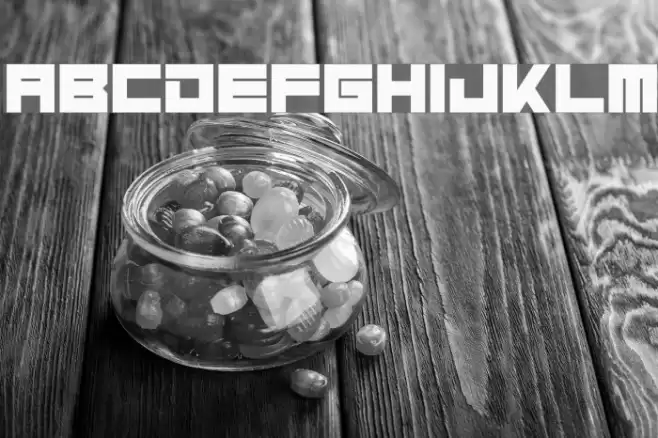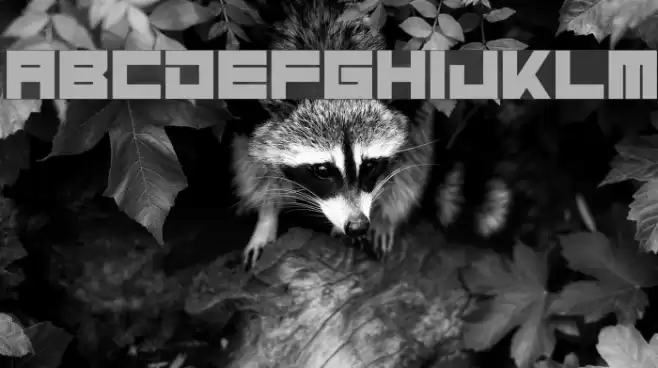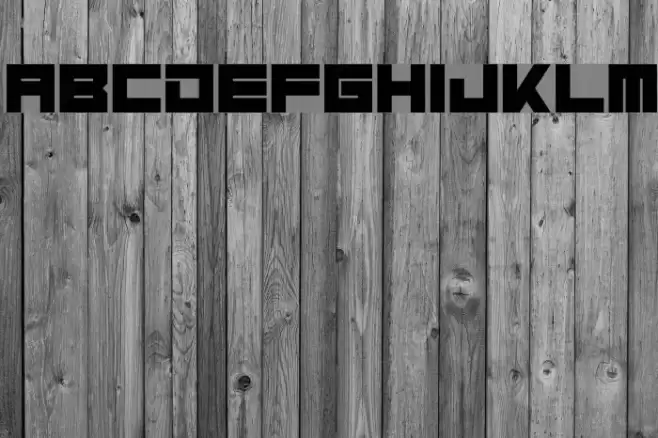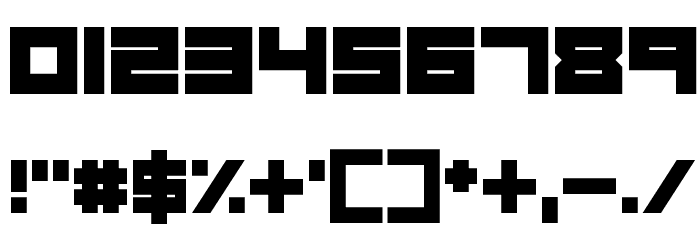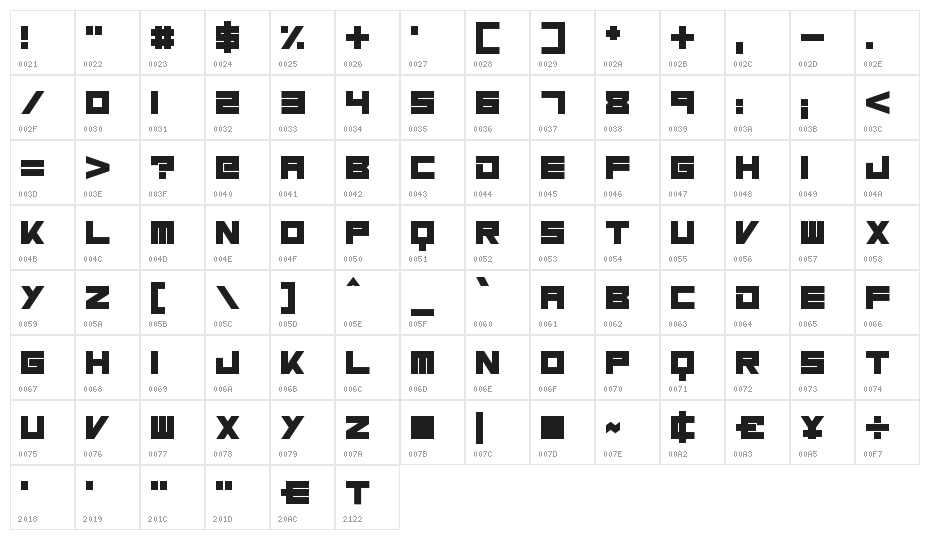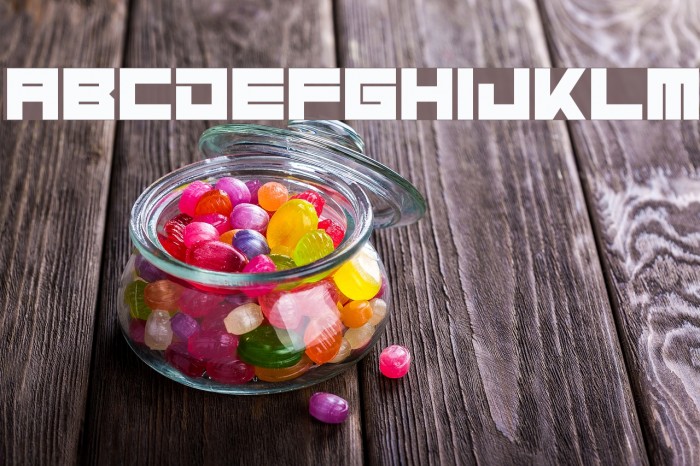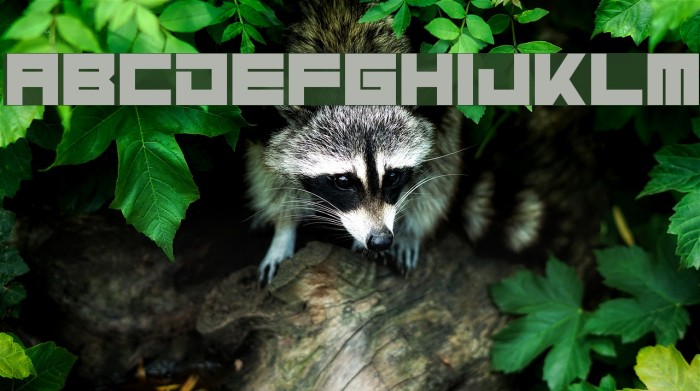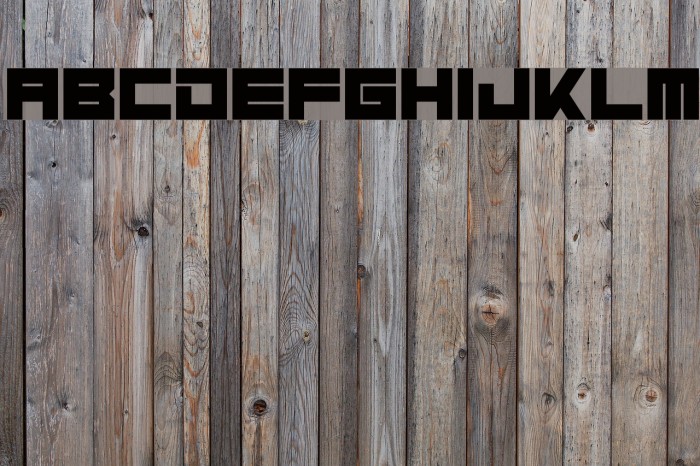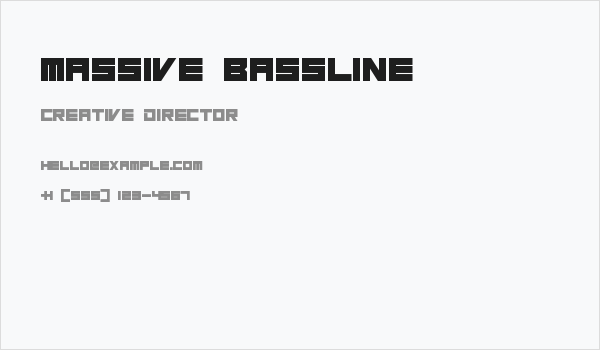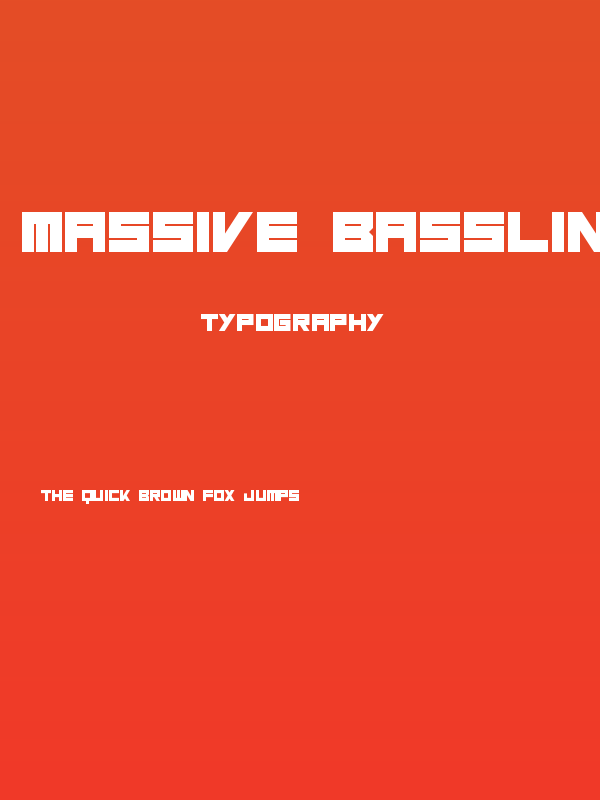
Massive Bassline Font
Massive Bassline Description
This font features a bold, geometric design with a futuristic and industrial feel. The characters are constructed with thick, block-like strokes, creating a strong visual impact. Each letter is distinct, with sharp angles and a uniform height, contributing to a cohesive and structured appearance. The numbers and special characters maintain the same boldness and geometric style, ensuring consistency across all elements. The font's design is highly stylized, making it suitable for projects that require a modern and edgy aesthetic.
A bold, geometric font with a futuristic and industrial style from Uncategorized fonts.
- Proposed Projects: Ideal for use in technology branding, video game titles, sci-fi movie posters, and modern advertising campaigns.